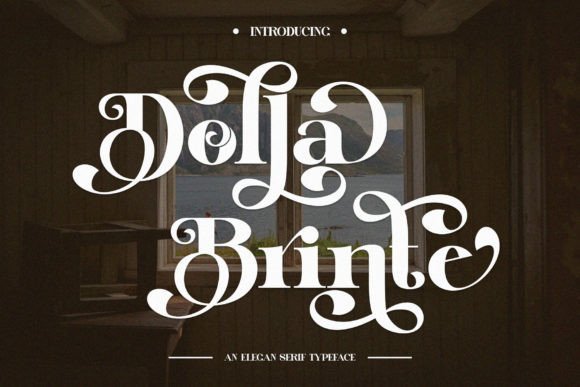
The Perfect Balance of Elegance: Unveiling the Dolla Brinte Font
Have you ever been stuck on a design project, struggling to find the perfect font that captures the essence of your vision? I know I have. But then, like a breath of fresh air, you stumble upon a font that perfectly harmonizes with your creative intent. For me, that moment came when I discovered the Dolla Brinte Font – a masterfully crafted serif typeface that has revolutionized my design process.
The Dolla Brinte Font is an elegant serif typeface inspired by the minimalist logo, perfect for a wide range of design applications, from templates and brochures to videos, advertising branding, logos, and more. Its versatility and sophistication make it an invaluable tool for designers looking to elevate their craft.
Dolla Brinte Font Key Features
- Font Family: Dolla Brinte
- Unique Characteristics: Hand-drawn design, featuring a mix of modern and vintage elements, with a bold and playful feel
Dolla Brinte Font Review
At first glance, the Dolla Brinte font seems like a promising addition to any design project. ✨ Its unique blend of modern and vintage elements makes it perfect for creating eye-catching headlines and titles. The font’s bold and playful feel immediately grabs attention, and its versatility allows it to work well across various design contexts.
Here are some of the things that work well with the Dolla Brinte font:
- ✨ Unique blend of modern and vintage elements
- ✨ Perfect for creating eye-catching headlines and titles
- ✨ Versatile and suitable for various design contexts
- ✨ Bold and playful feel
- ⚠️ May not be suitable for body text due to its bold and playful feel
- ⚠️ Limited font sizes and styles available
- ⚠️ May not work well in smaller resolutions or screen sizes
Overall, the Dolla Brinte font is a solid choice for designers looking to add some personality to their projects. While it has some limitations, its unique feel and versatility make it a great addition to any design toolkit. With a little creativity and experimentation, designers can unlock the full potential of this font and create truly stunning designs.
Getting the Most Out of the Dolla Brinte Font
To get the most out of the Dolla Brinte font, try the following:
- Use it in combination with other bold and playful fonts for a unique look.
- Use it for headings and titles to create a cohesive look.
The Dolla Brinte font is perfect for:
- Playful branding and marketing materials
Alternatives to Dolla Brinte Font
Fontin is a sans-serif font that is known for its clean and modern look. It is suitable for use in headings, titles, and other prominent text elements. When to use: For projects that require a professional and modern aesthetic.
Comparison: Fontin is a more traditional sans-serif font compared to Dolla Brinte Font, which has a more playful and handwritten feel. Fontin is a better choice for projects that require a more formal tone.
Great Vibes is a script font that is designed to evoke a sense of relaxation and calmness. It is suitable for use in titles, headings, and other text elements where a touch of elegance is needed. When to use: For projects that require a creative and artistic aesthetic.
Comparison: Great Vibes is a more elegant and refined font compared to Dolla Brinte Font, which has a more casual and playful feel. Great Vibes is a better choice for projects that require a touch of sophistication.
Alex Brush is a brush script font that is designed to mimic the look of handwritten text. It is suitable for use in titles, headings, and other text elements where a personal and creative touch is needed. When to use: For projects that require a unique and artistic aesthetic.
Comparison: Alex Brush is a more expressive and dynamic font compared to Dolla Brinte Font, which has a more uniform and consistent feel. Alex Brush is a better choice for projects that require a lot of personality.